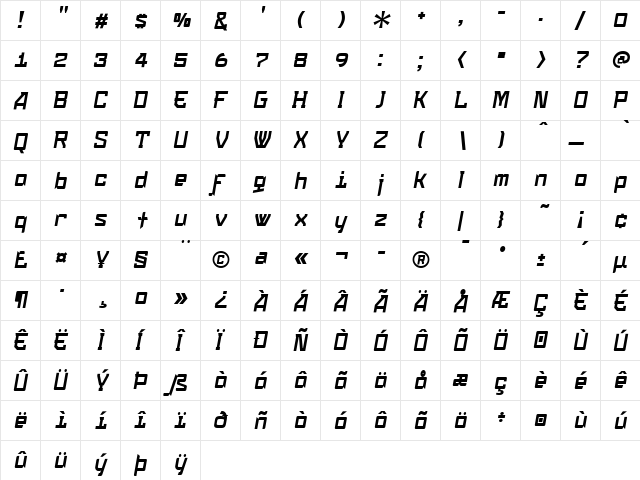
Konvexist Oblique
Design Context for Konvexist Typeface
Konvexist offers clean, dependable letterforms without strong stylistic allegiance, making it a practical choice for designers who need flexibility. The dynamic lean of this cut emphasises speed and emphasis in any layout.
Pro Tip: Try Konvexist for annotation and caption copy alongside an upright companion — the contrast in angle creates a dynamic but ordered typographic system.